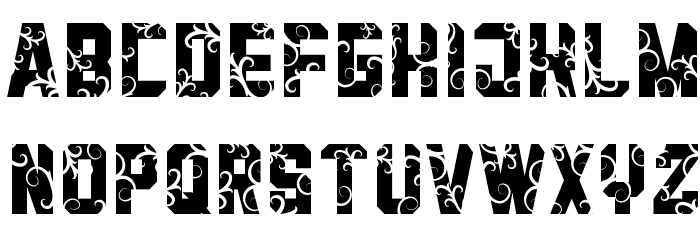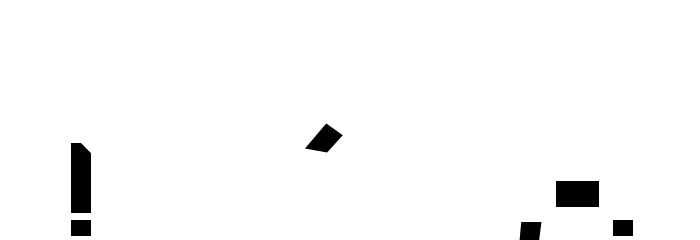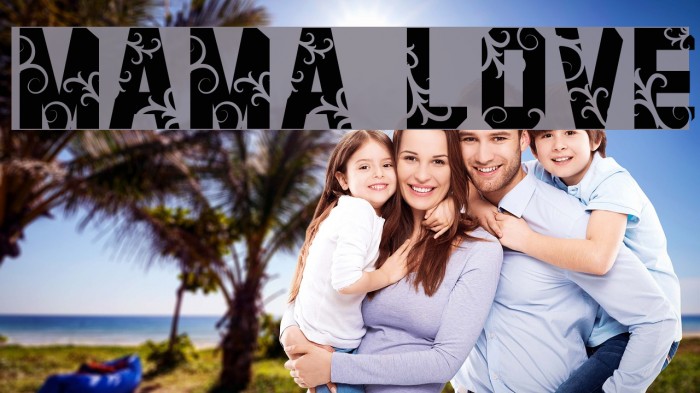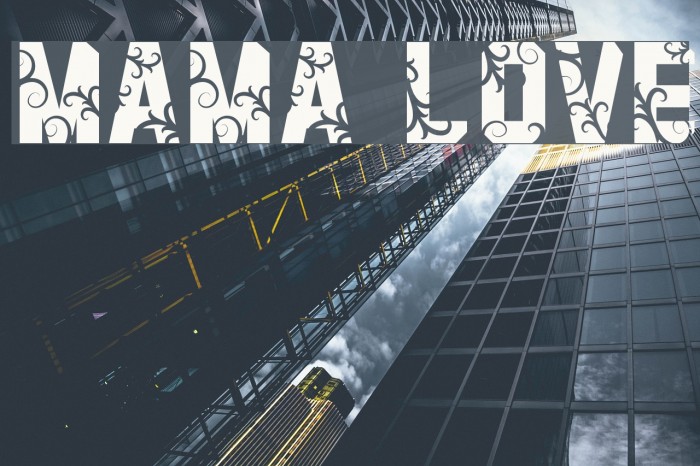
Mama Love Font
This font features a bold, decorative style with intricate floral patterns embedded within each character. The uppercase letters are designed with a strong, blocky structure, while the floral elements add a touch of elegance and complexity. The contrast between the solid black letterforms and the delicate white floral designs creates a striking visual effect. This font is highly decorative, making it suitable for projects that require a bold statement. The characters are evenly spaced, ensuring readability despite the intricate details. The overall style is modern with a decorative twist, perfect for creative and artistic applications.
A bold, decorative font with intricate floral patterns.
- Font: Mama Love
- Proposed Projects: Ideal for wedding invitations, event posters, artistic branding, and decorative headlines.
- Overall Style: Modern, Decorative
- Use Case: Headlines, Logos, Artistic projects